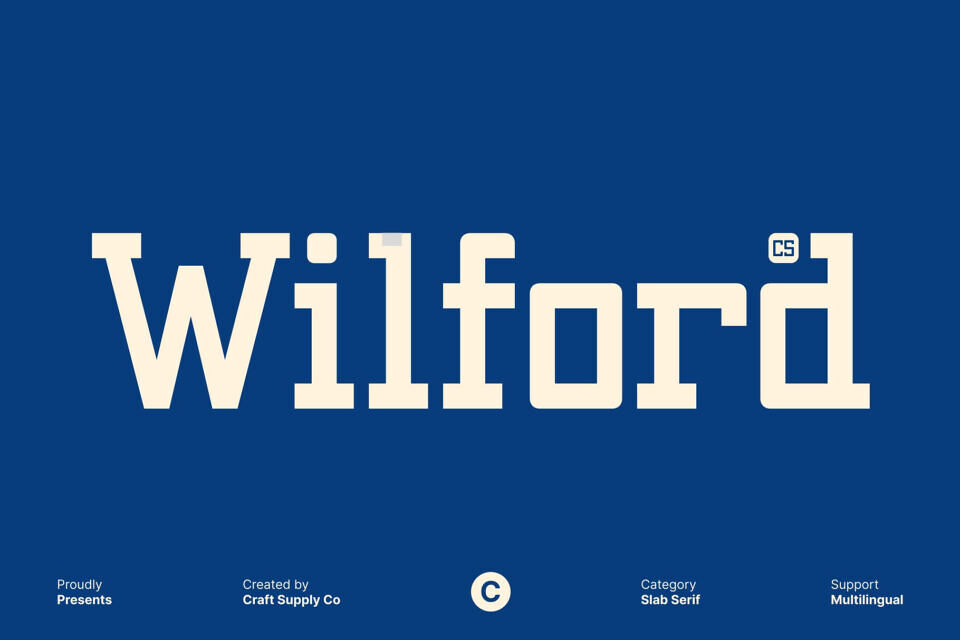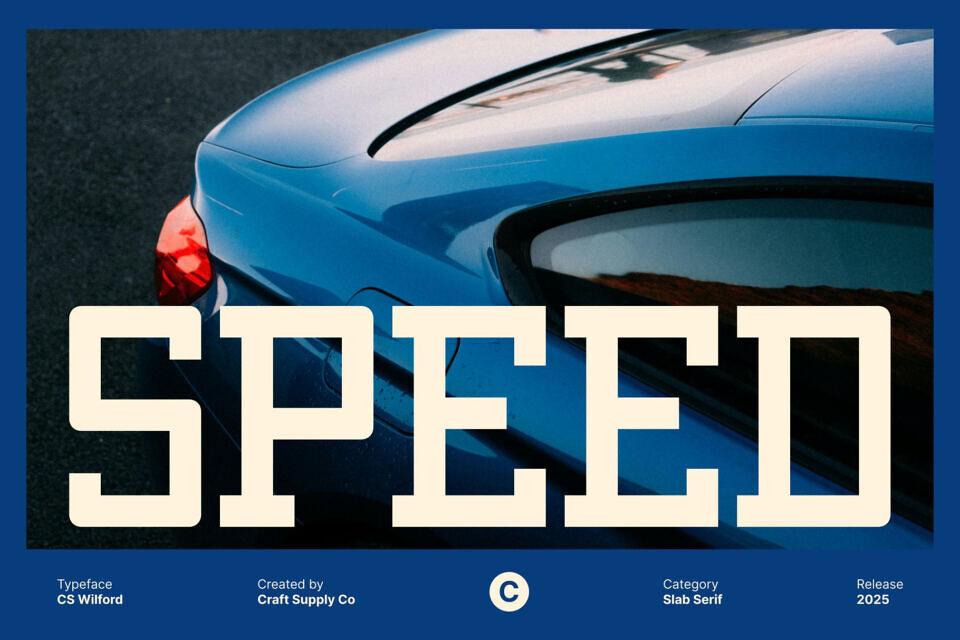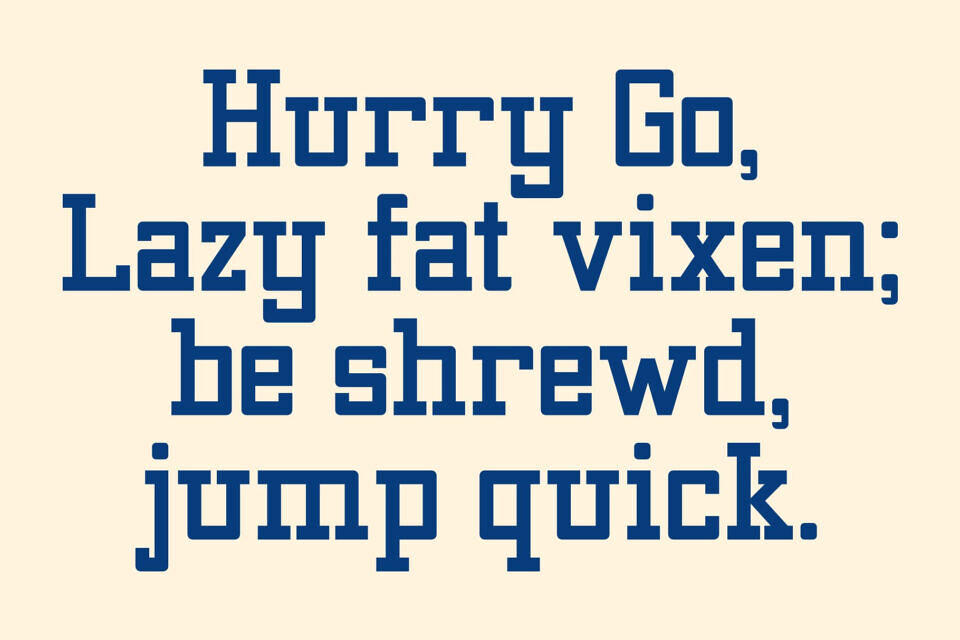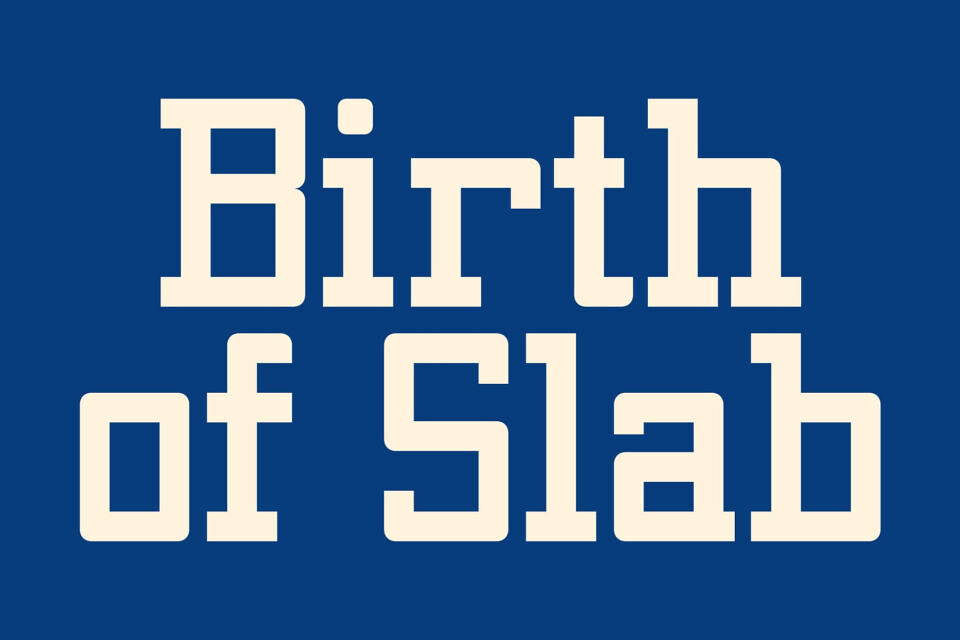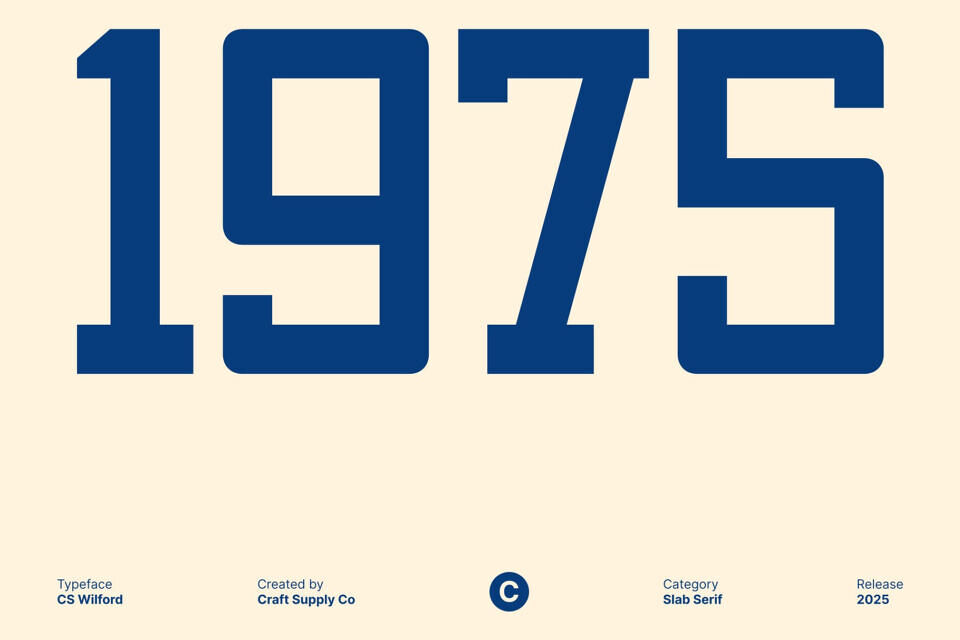
Wilford is a slab serif font built with square shapes that instantly command attention. Its structured, geometric form gives every letter a powerful presence, making it ideal for designers seeking a modern and assertive typographic voice. The sharp edges and precise construction create a clean, impactful appearance that elevates any contemporary layout.
With its sturdy slab serifs, this font delivers exceptional strength and clarity. The robust serifs enhance the font’s visual weight while maintaining smooth readability, allowing headlines and titles to stand out with confidence. These carefully designed serifs provide both aesthetic appeal and structural stability, creating a typeface that feels grounded and dependable.